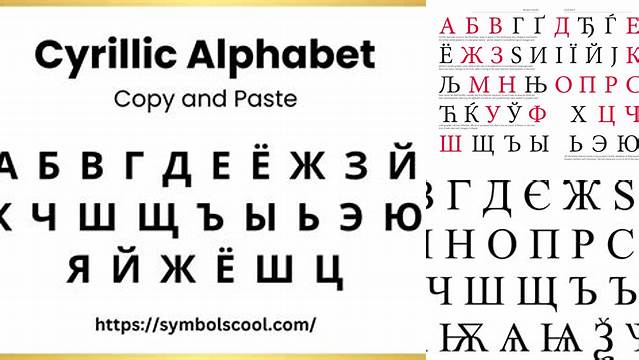
Cyrillic Fonts: Copy & Paste Guide For Designers
Are you looking for the best fonts for the Cyrillic alphabet that you can easily copy and paste? Well, you've come to the right place! This article dives deep into the world of Cyrillic fonts, helping you understand their nuances and choose the perfect ones for your projects. We'll cover everything from where to find them to how to use them effectively.
Understanding the Cyrillic Alphabet
Before we jump into specific fonts, let's quickly recap the Cyrillic alphabet. It's used by a variety of languages, including Russian, Ukrainian, Bulgarian, Serbian, and many others. The alphabet has evolved over time, and different languages use slightly different variations. This means that a font designed for Russian might not include all the characters needed for Serbian, so always double-check!
Key takeaway: Understanding the specific language you're working with is crucial when selecting a Cyrillic font.
Where to Find Cyrillic Fonts
Finding high-quality Cyrillic fonts can sometimes feel like a treasure hunt. Not all font foundries offer extensive Cyrillic support, so you need to know where to look. Here are some excellent resources:
1. Google Fonts
Google Fonts is a fantastic starting point. It offers a wide selection of free, open-source fonts, many of which include Cyrillic characters. The best part? You can easily embed these fonts into your website or use them in your design software. Some popular choices include:
- Roboto: A clean and modern sans-serif that works well for body text and headlines.
- Open Sans: Another versatile sans-serif, known for its readability.
- Montserrat: A geometric sans-serif that's great for display purposes.
To find Cyrillic fonts on Google Fonts, simply filter by the "Cyrillic" script. This will narrow down the selection to fonts that support the alphabet.
2. Adobe Fonts
If you have an Adobe Creative Cloud subscription, you have access to Adobe Fonts (formerly Typekit). This library boasts a massive collection of high-quality fonts, including many with excellent Cyrillic support. Adobe Fonts are professionally designed and tested, ensuring a consistent and polished look.
Popular Cyrillic fonts on Adobe Fonts:
- Source Sans Pro: A well-designed sans-serif suitable for various applications.
- PT Serif: A classic serif font that's perfect for longer texts.
3. MyFonts and Other Font Foundries
MyFonts is a huge marketplace for fonts, offering a vast selection from independent designers and foundries. While you'll have to pay for most of these fonts, you're likely to find some unique and specialized options that you won't find anywhere else. Be sure to check the character set of each font to ensure it includes the specific Cyrillic characters you need.
Other reputable font foundries to explore:
- Paratype
- TypeType
- Linotype
4. Free Font Websites
How to Choose the Right Cyrillic Font
Choosing the perfect Cyrillic font depends on several factors, including the project's purpose, the target audience, and the overall design aesthetic. Here are some tips to help you make the right choice:
1. Readability
First and foremost, the font should be readable. Avoid overly decorative or complex fonts, especially for body text. Clarity is key when it comes to conveying information effectively.
2. Character Support
As mentioned earlier, ensure that the font includes all the Cyrillic characters needed for your specific language. Check the font's character map or glyph set to verify this.
3. Style and Tone
The font's style should match the overall tone of your project. A serious, professional project might call for a clean sans-serif or a classic serif font. A more playful or creative project could benefit from a more unique or decorative font.
4. Consistency
If you're using multiple fonts in a project, make sure they complement each other. Avoid using too many different fonts, as this can create a cluttered and unprofessional look. A good rule of thumb is to stick to two or three fonts at most.
5. Test it Out
Before committing to a font, test it out with actual text from your project. See how it looks in different sizes and weights. Make sure it's legible and visually appealing.
Copying and Pasting Cyrillic Text
Once you've chosen your font, you'll likely need to copy and paste Cyrillic text into your design software or website. Here are a few tips to ensure a smooth process:
1. Character Encoding
Make sure your software or website is using the correct character encoding. UTF-8 is the most common and widely supported encoding, and it should work for most Cyrillic characters. If you're having issues, check your settings and make sure UTF-8 is selected.
2. Keyboard Layout
You'll need a Cyrillic keyboard layout to type Cyrillic text. Most operating systems allow you to add multiple keyboard layouts. Once you've added a Cyrillic layout, you can switch between layouts as needed.
3. Online Translators
If you don't have a Cyrillic keyboard layout, you can use online translators to convert English text to Cyrillic. Google Translate is a popular option, but there are many other online translators available.
4. Copy and Paste with Care
When copying and pasting Cyrillic text, be careful to avoid introducing errors. Double-check the text to make sure all the characters are displayed correctly.
Popular Cyrillic Fonts
To give you some concrete examples, here are some popular and highly-regarded Cyrillic fonts:
- PT Sans and PT Serif: These fonts were specifically designed for the Russian alphabet and are excellent choices for a wide range of applications.
- Fira Sans: A modern sans-serif font that's highly readable and supports a variety of languages, including Cyrillic.
- Exo 2.0: A geometric sans-serif font that's perfect for headlines and display purposes.
- Lora: A well-balanced serif font with a contemporary feel.
Best Practices for Using Cyrillic Fonts
- Consistency is Key: Maintain a consistent visual identity by using a limited number of fonts across your project.
- Legibility Matters: Always prioritize legibility, especially for body text.
- Test Across Platforms: Ensure your chosen fonts display correctly on different devices and browsers.
- Respect Licensing: Adhere to the licensing terms of your fonts, particularly when using free fonts for commercial purposes.
By following these guidelines, you can ensure that your use of Cyrillic fonts is both effective and aesthetically pleasing.
Choosing the right fonts for the Cyrillic alphabet doesn't have to be daunting. By understanding the nuances of the alphabet, knowing where to find high-quality fonts, and following best practices for usage, you can create stunning designs that effectively communicate your message. So go forth and explore the world of Cyrillic typography! Guys, have fun experimenting and finding the perfect fonts for your next project!